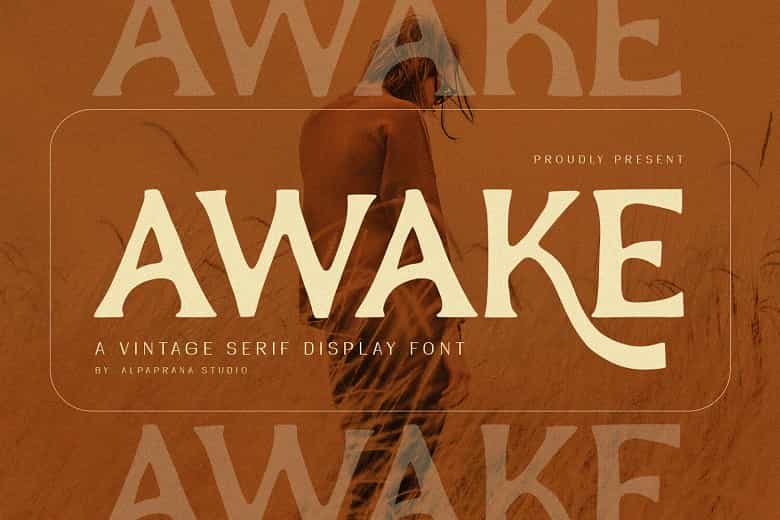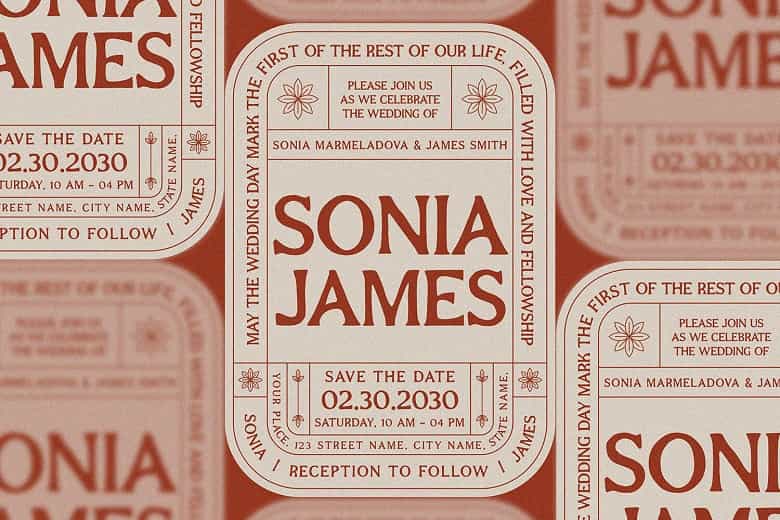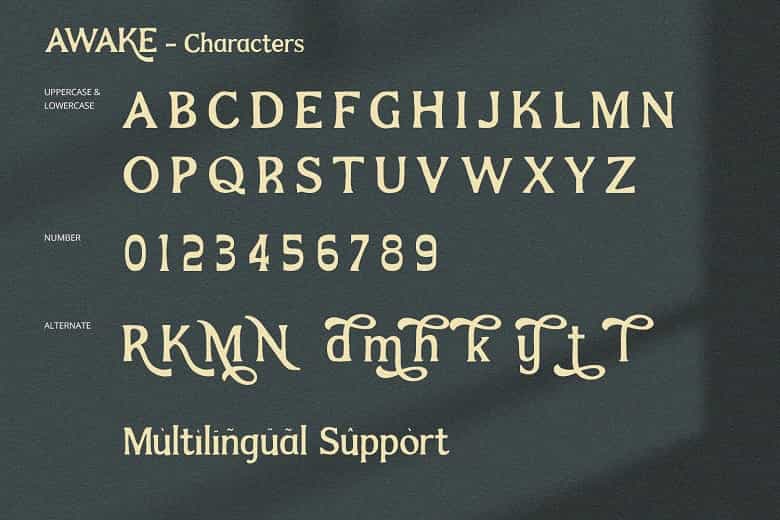
Awake is a vintage serif font that has a elegant yet contemporary display design to it. This will be very suitable for branding, logo design, lettering, logotype, clothing, poster, magazine, packaging, posters, shopping bags, t-shirts, book covers, photography, special events and any other design task.